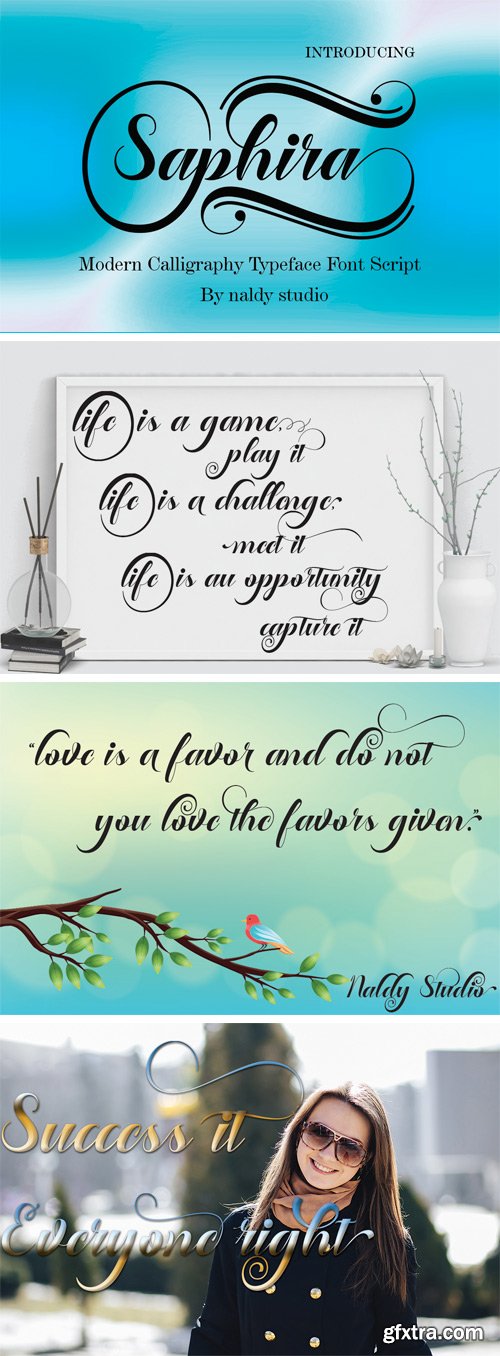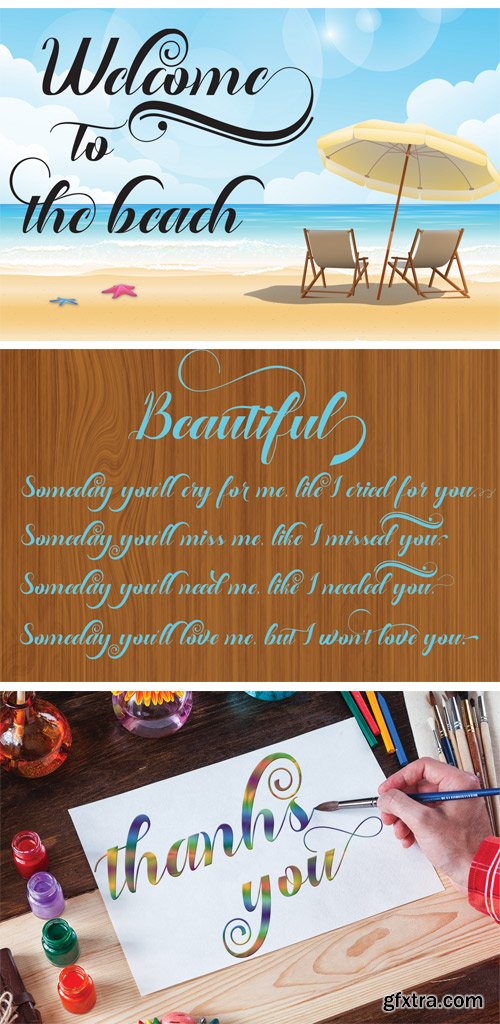
Saphira Modern Calligraphy. This font was designed by handwriting, and it has a modern and unique forms of calligraphy, the writing style is very natural.